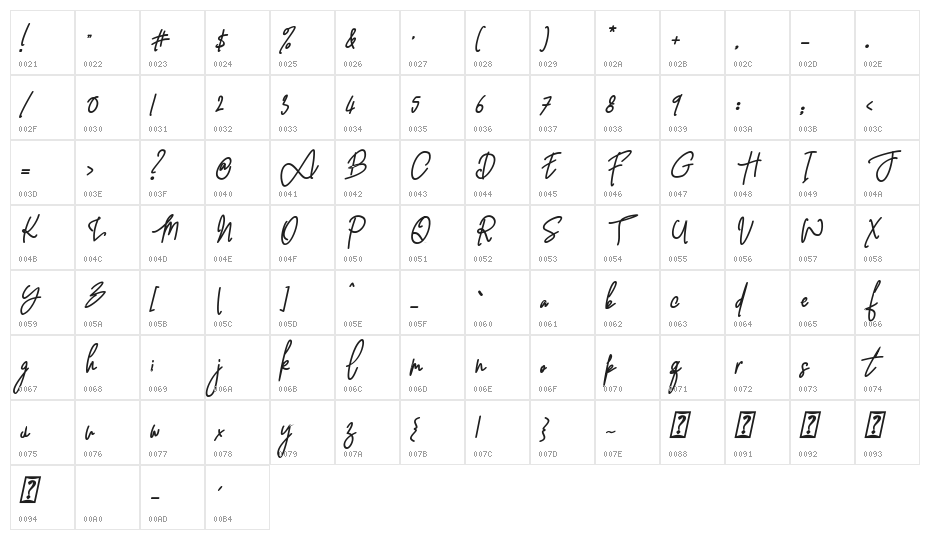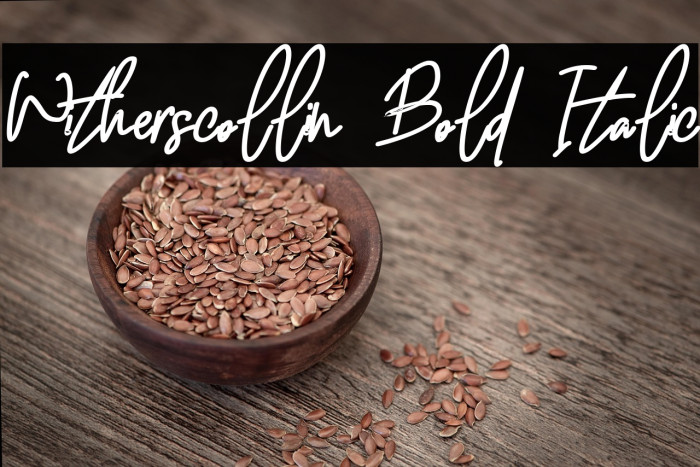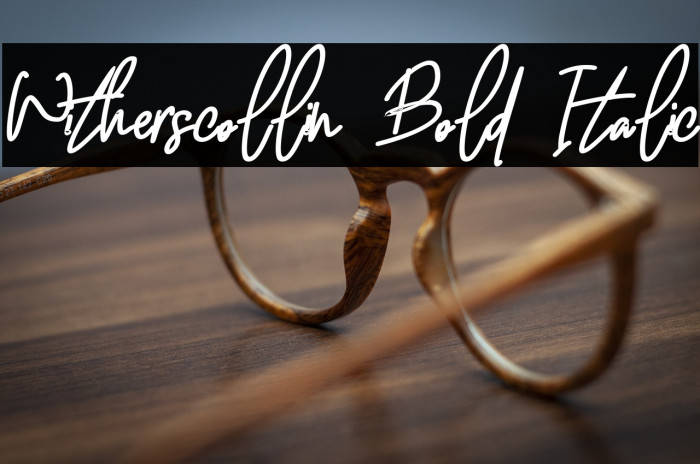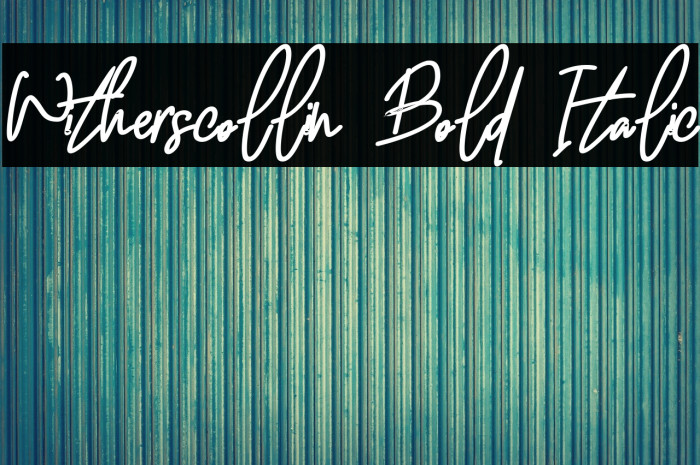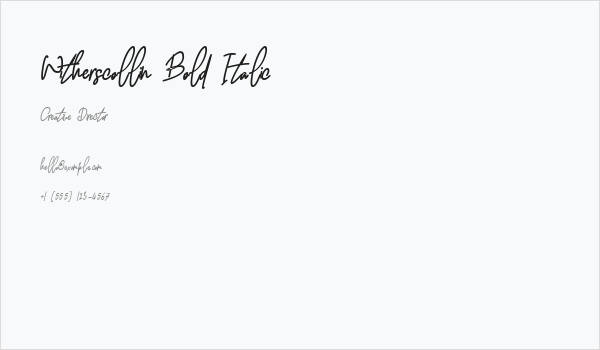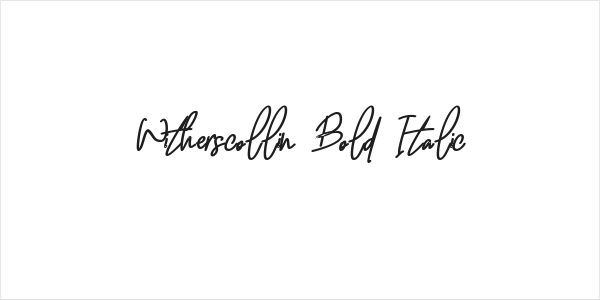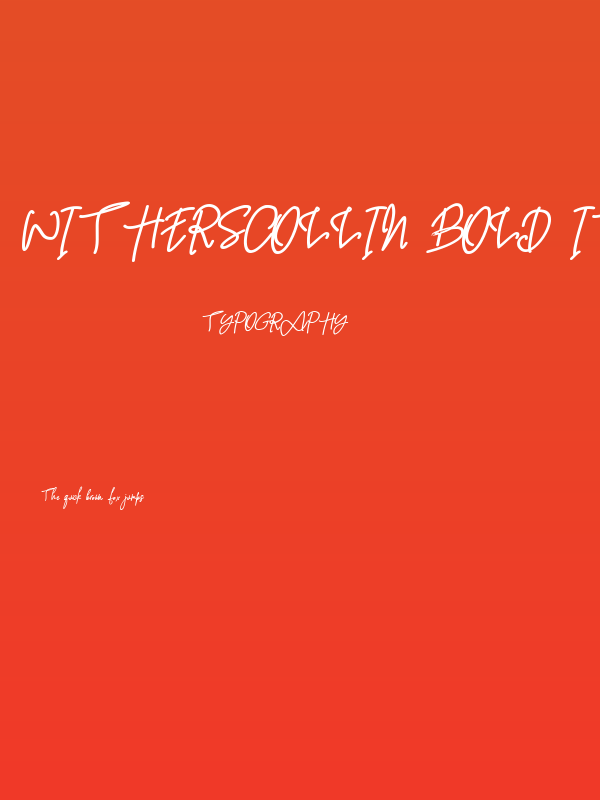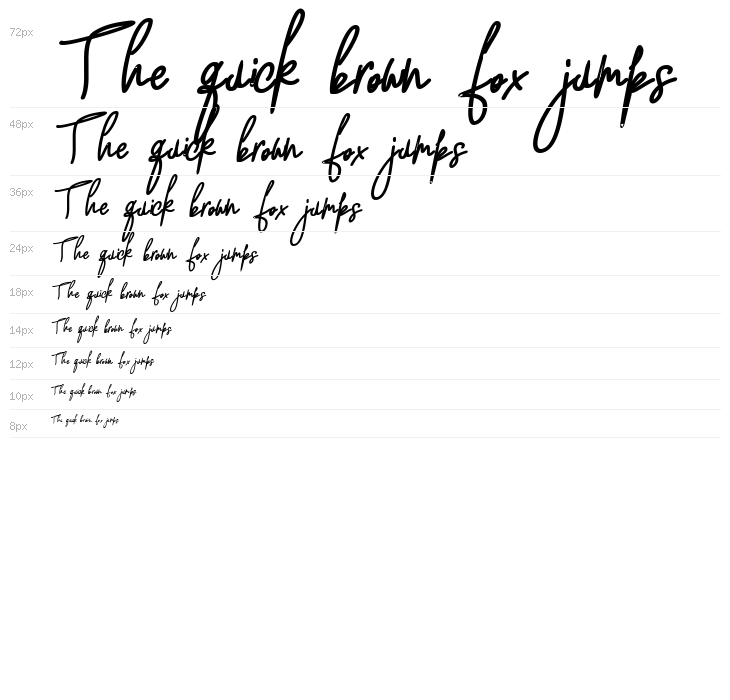
Witherscollin Bold Italic Font
Witherscollin Bold Italic Description
This font exhibits a dynamic and expressive handwritten style, characterized by its fluid and cursive letterforms. The strokes are smooth and connected, giving it a natural and flowing appearance. The uppercase letters are bold and slightly slanted, while the lowercase letters maintain a consistent italicized form. The numerals and special characters follow the same stylistic approach, ensuring uniformity across all glyphs. This font's overall aesthetic is both elegant and casual, making it suitable for a variety of creative applications.
| Proposed Projects | Ideal for wedding invitations, personal branding, greeting cards, and artistic projects that require a personal touch. |